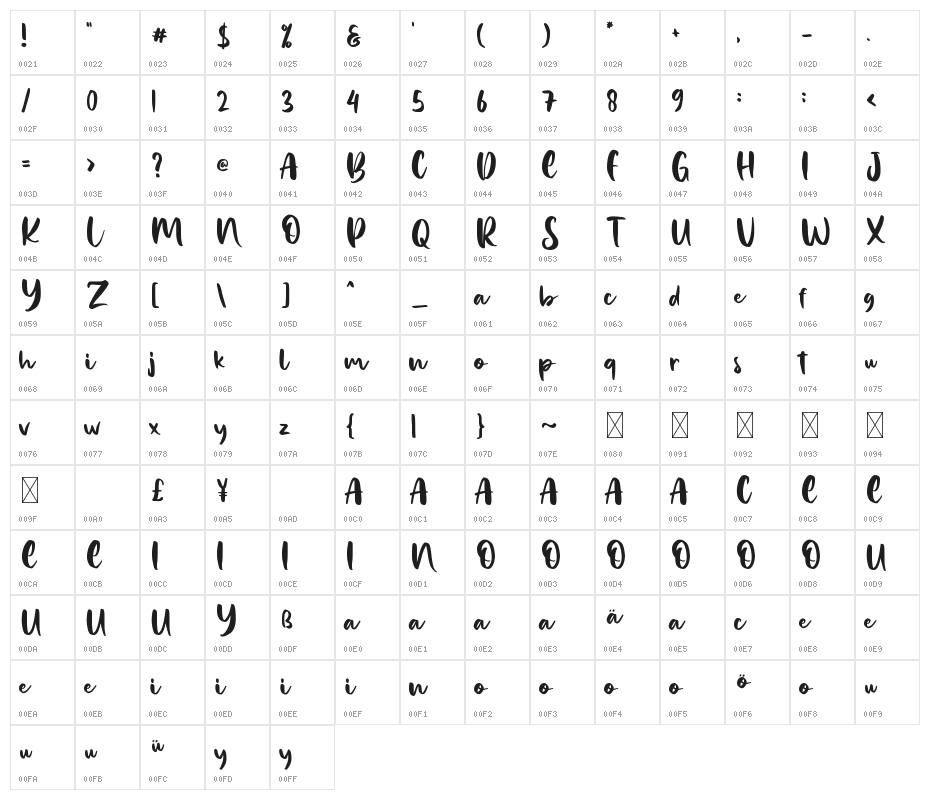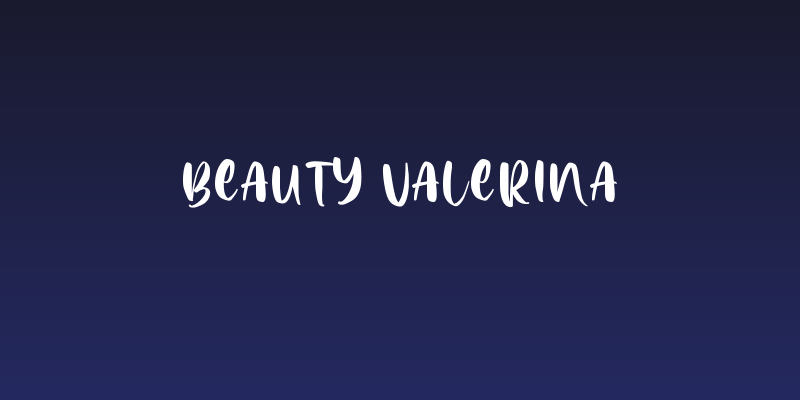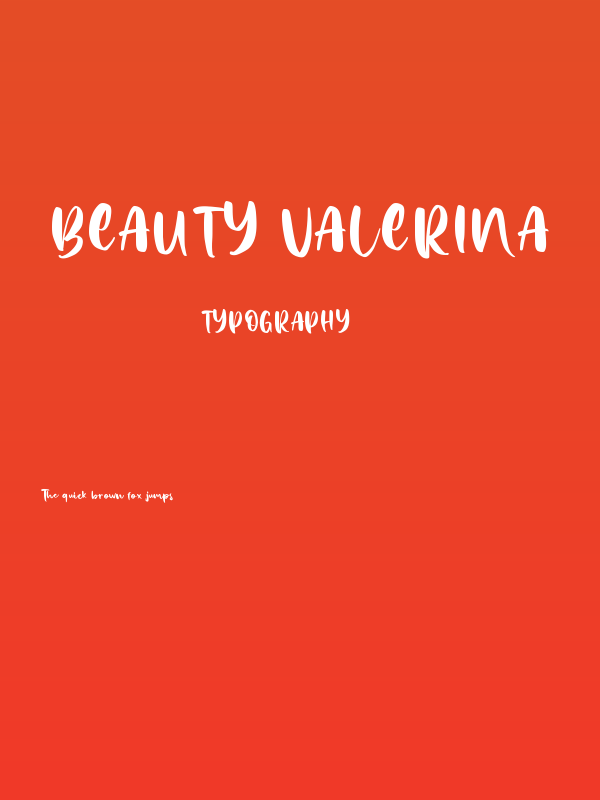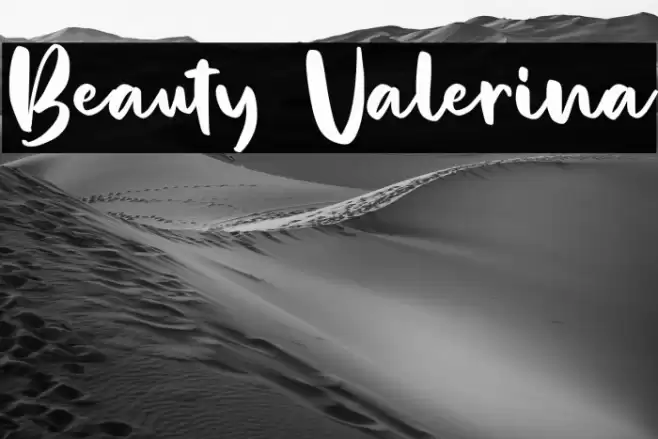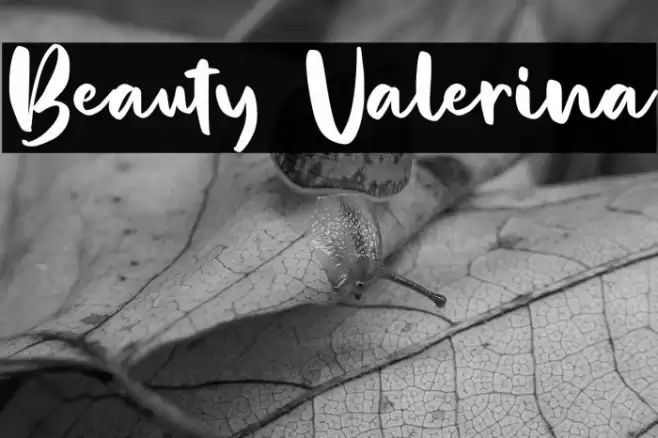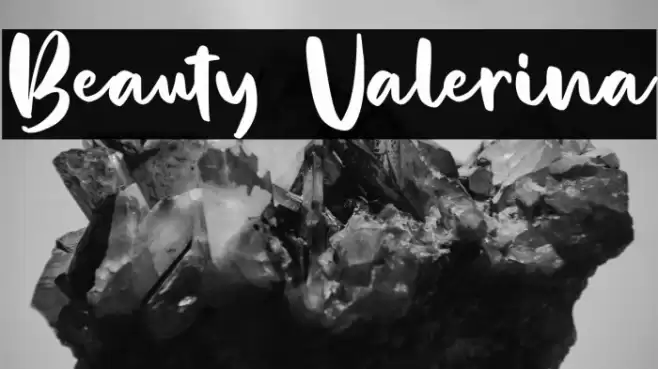
Beauty Valerina Font
Beauty Valerina Description
A bold, handwritten script font with smooth, flowing strokes and playful curves, giving it an energetic and modern appearance. The characters are slightly irregular, mimicking natural handwriting, and the overall look is friendly and approachable.
| Overall Style | Modern, Decorative, Playful |
| Use Case | Logos, Headlines, Invitations, Social media posts |
| Proposed Projects | Greeting cards, social media graphics, branding, invitations, posters. |